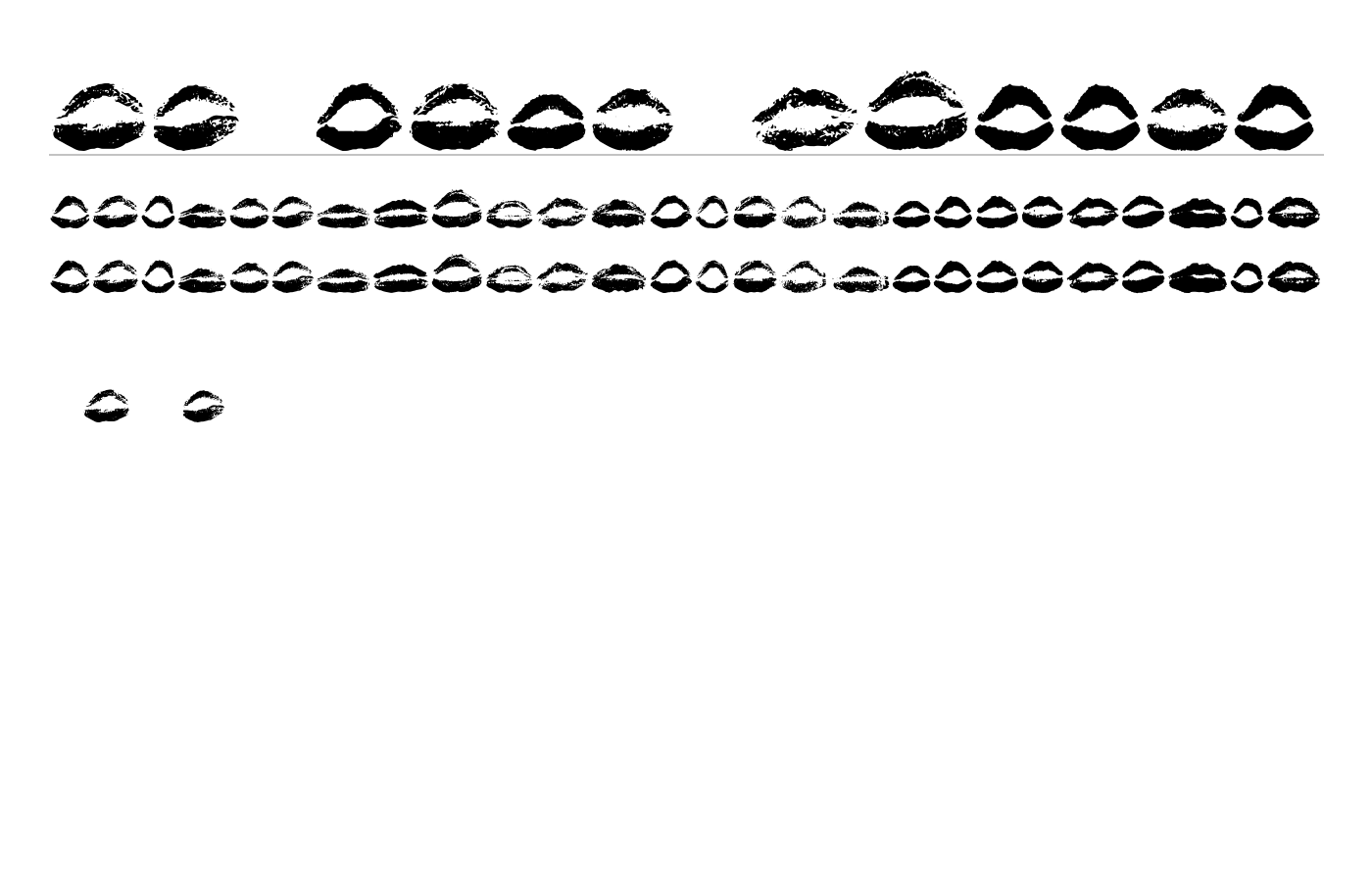
26 More Kisses is a playful and expressive display font featuring a series of lip print glyphs that mimic the texture and irregularity of real lipstick marks. Its bold, organic shapes create a fun, intimate vibe perfect for romantic, beauty, or lifestyle branding. This font works best for logos, packaging, invitations, and social media graphics seeking a unique, personal touch with a lively and flirty personality.
26 More Kisses Font
About 26 More Kisses Font